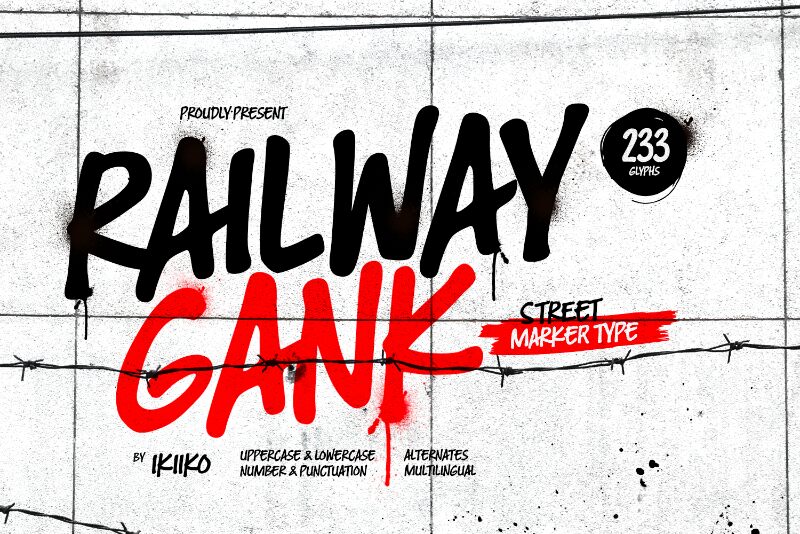
Railway Gank DEMO
Railway Gank font by Ikiiko Type is a free brush typeface. It stands out with springy, hand-painted strokes that taper at the ends and swell through the middle, giving each word a lively, inky snap. The letters lean slightly forward, spacing stays comfortably tight, and the rounded terminals keep the tone friendly while the chunky downstrokes add punch-great when you want warmth without losing impact.
Using Railway Gank, headlines grab attention for streetwear logos, café menus, food packaging, event posters, social posts, and merch tags. This free font shines at larger sizes; give it a touch of negative tracking for maximum rhythm. For balance, pair it with a clean geometric sans to let the brush texture breathe.